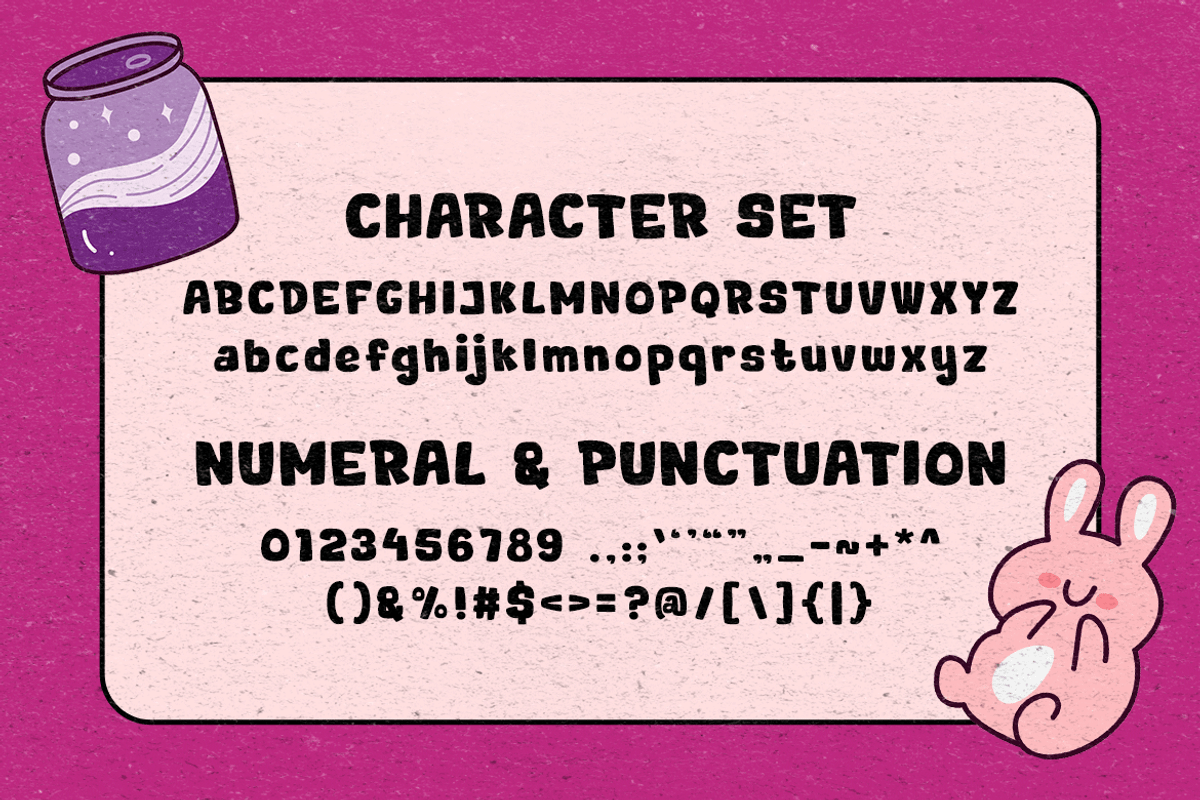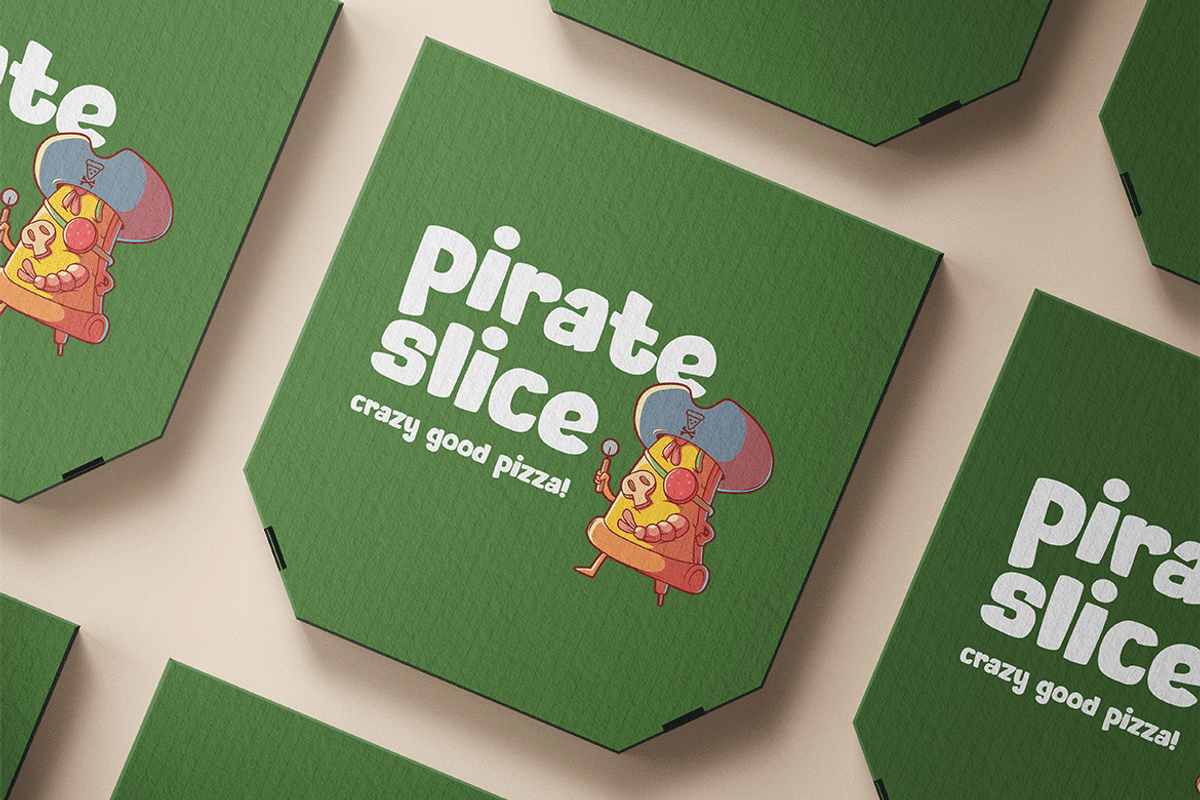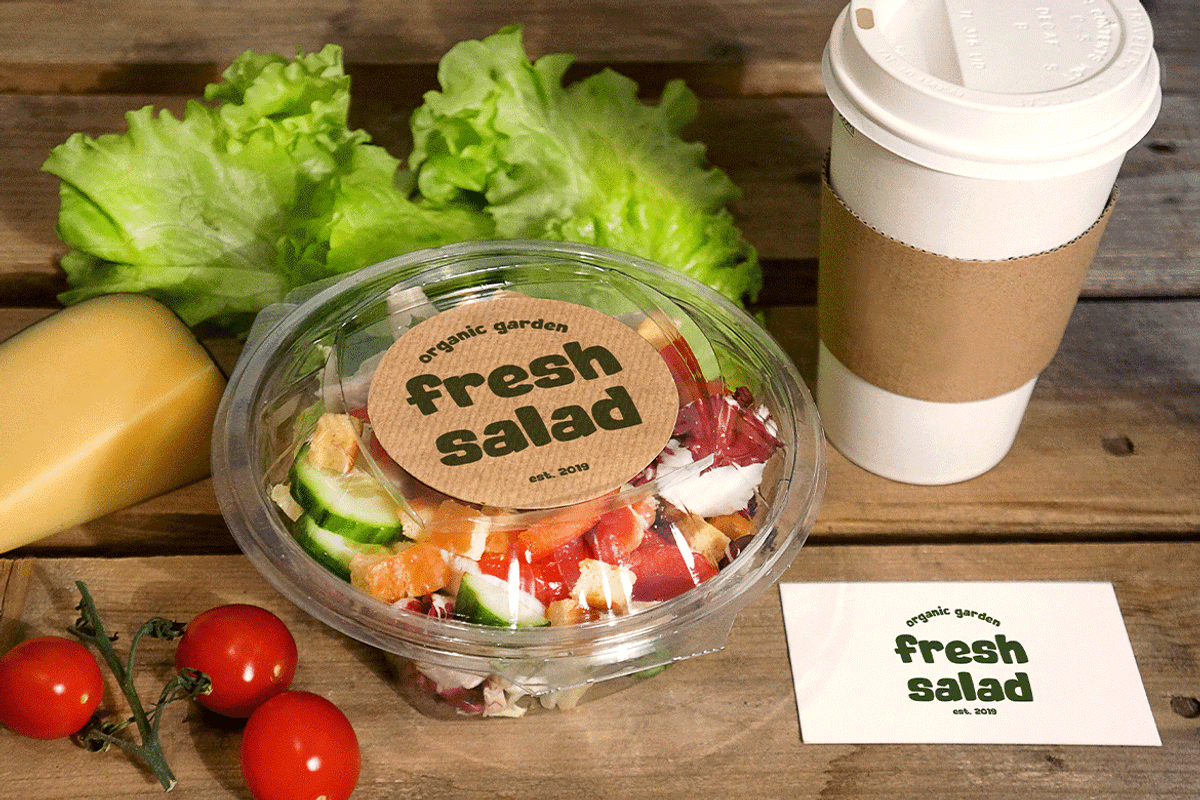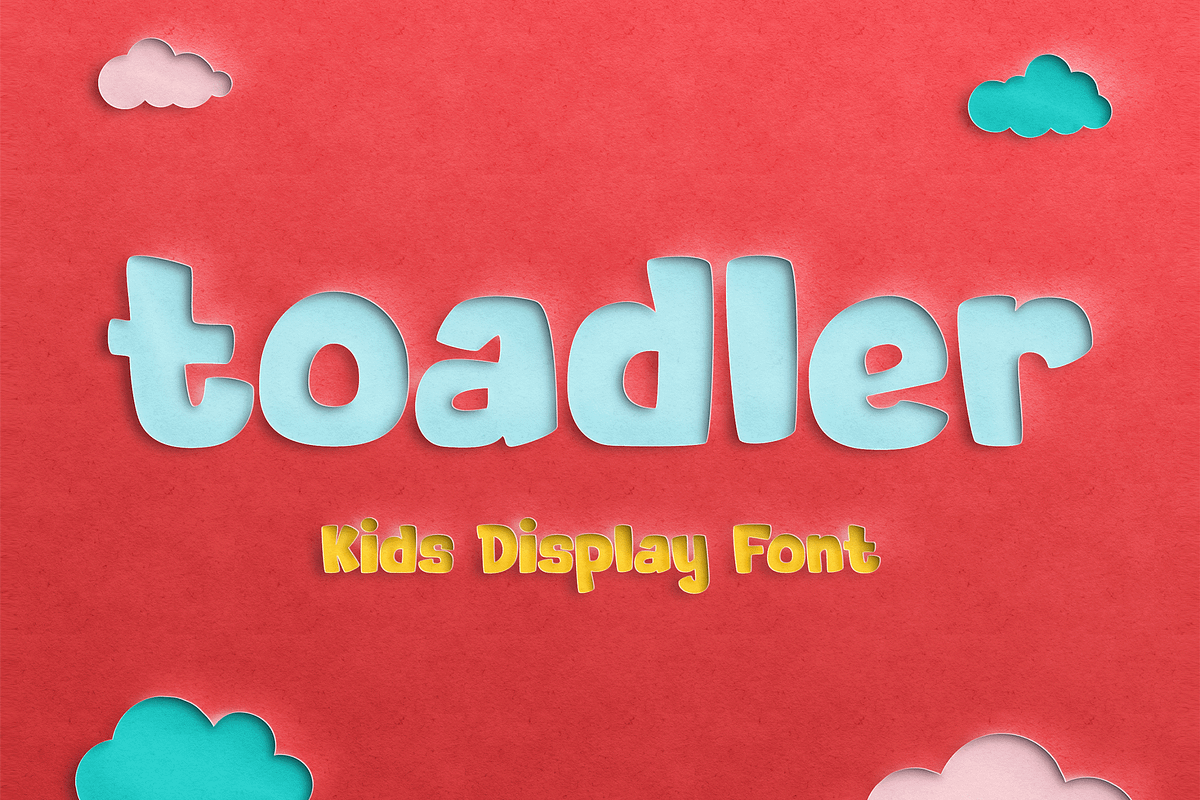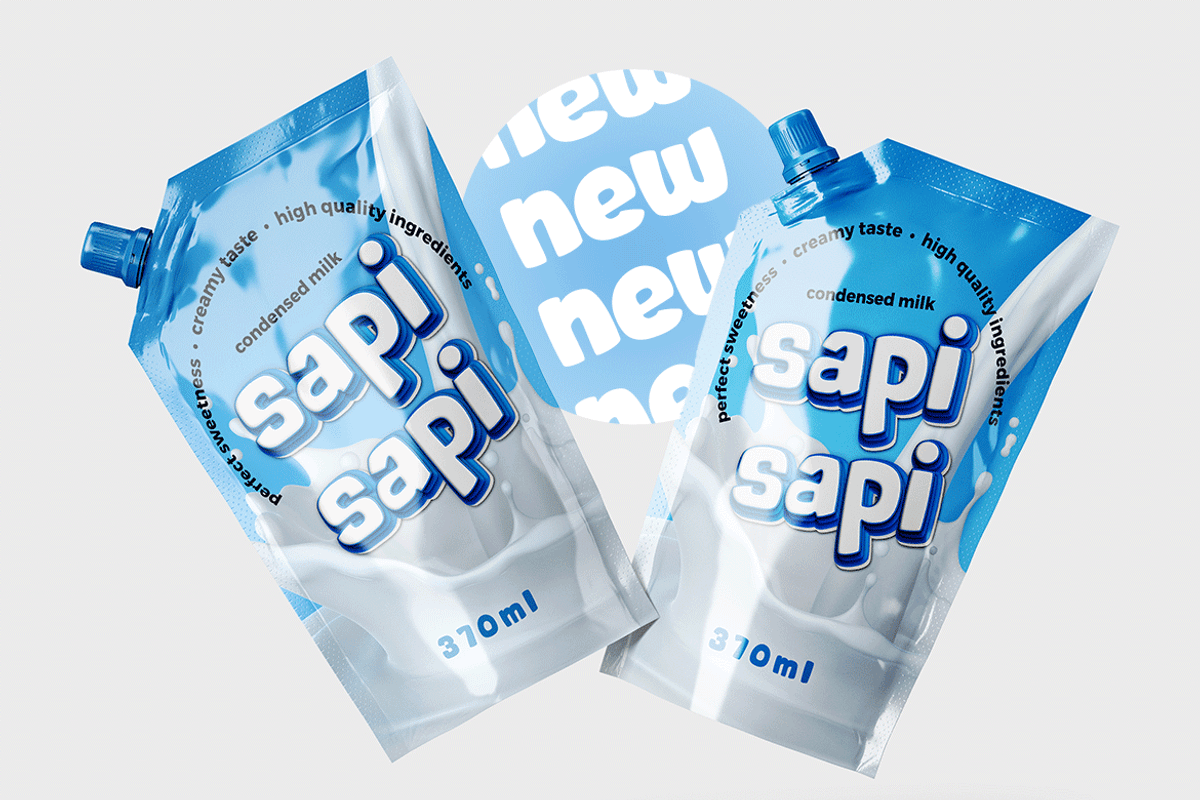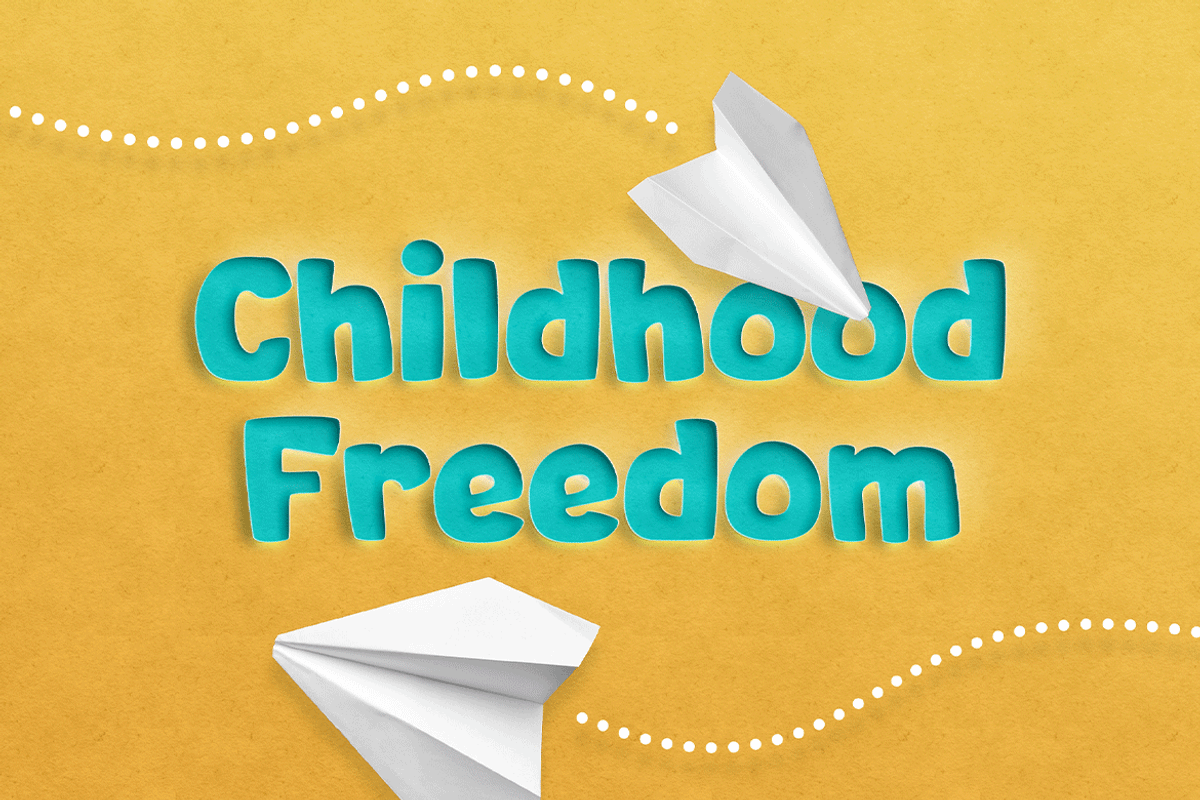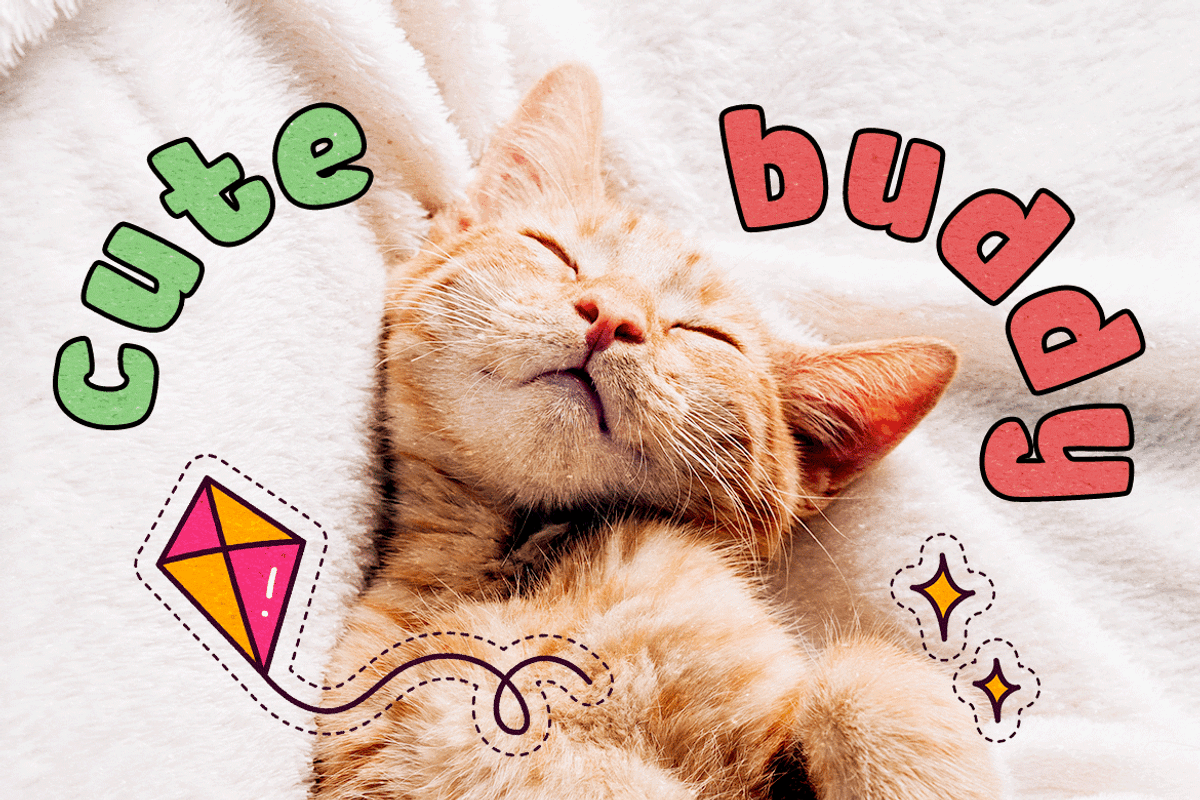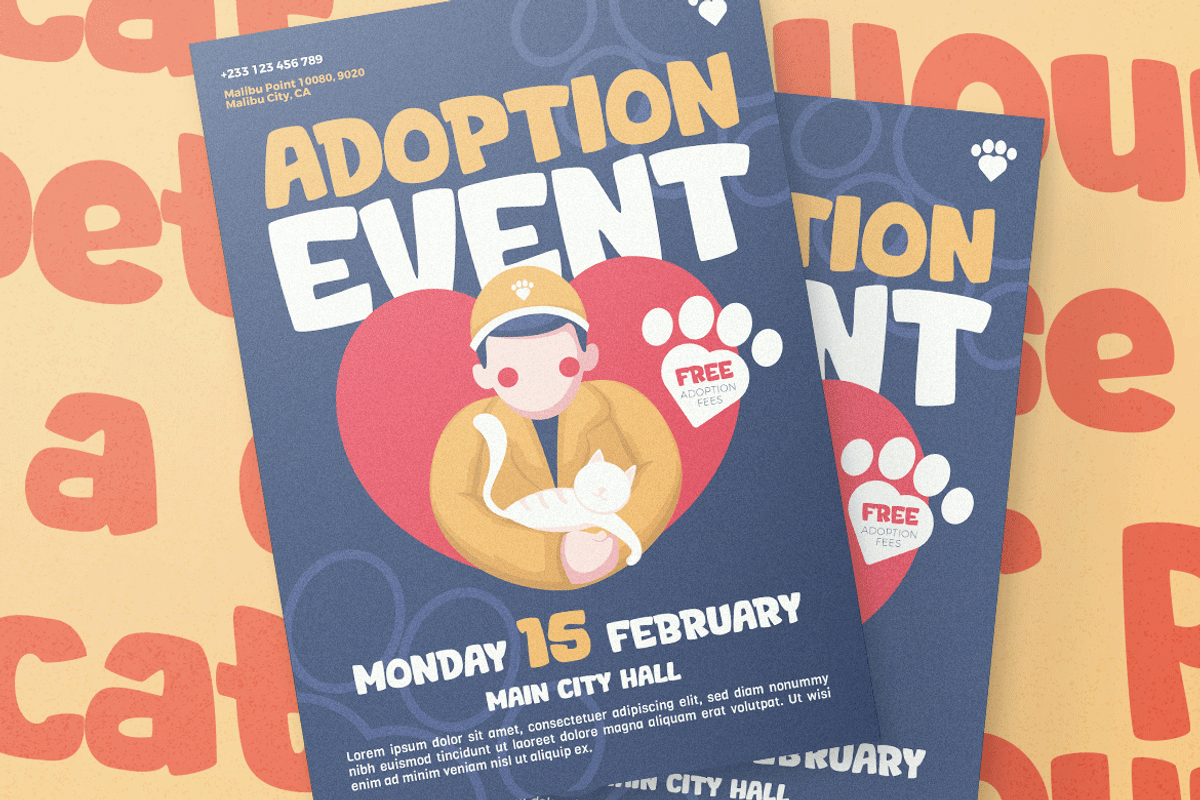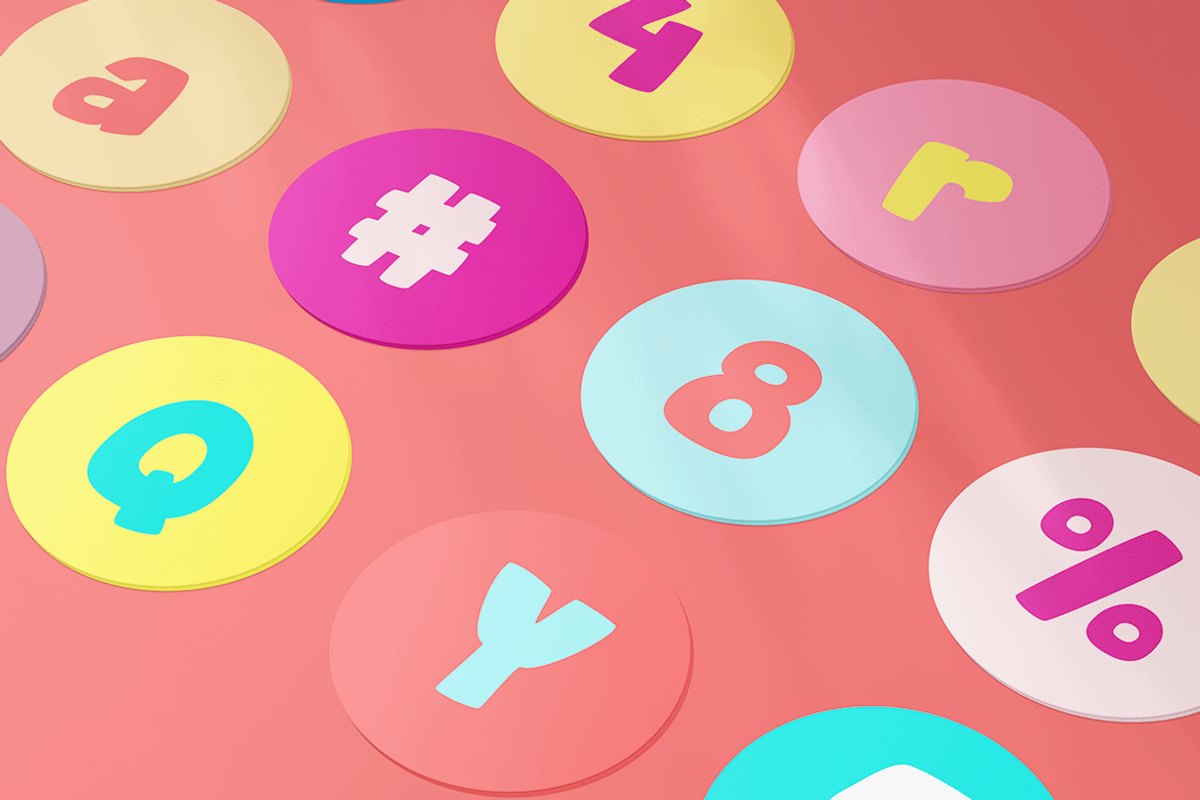
Toadler - Cute Cartoon Font
Toadler - Kids Display Font
Bold and fun, and bring smiles to everyone. Toadler is a play word from toddler. Hence, it's all about the cuteness they have.
Suit perfect for children's books market, online games, teens event posters, school supplies font, posters, movie titles, youtube covers, youtube thumbnails, social media page covers, and so on...